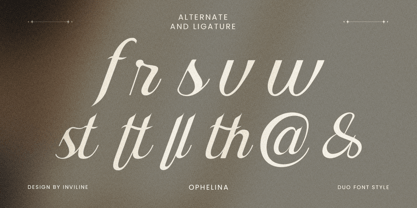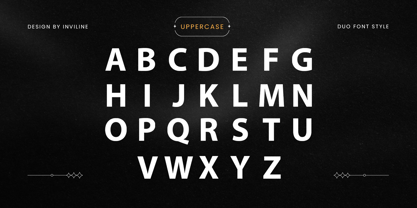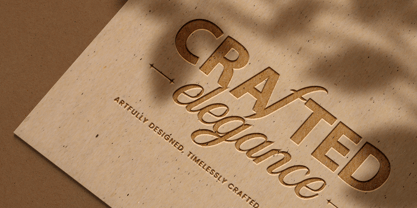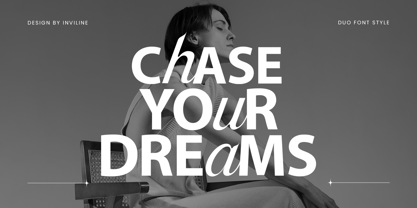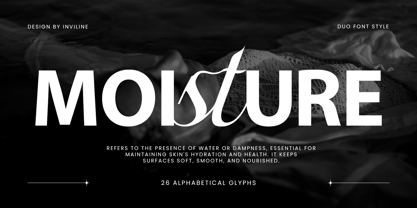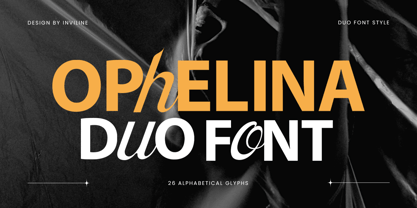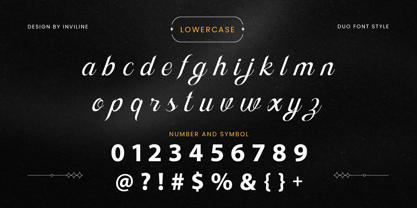
Ophelina
by Inviline
The Ophelina Font Family was designed by Muhammad Rizaldi and published by Inviline. Ophelina contains 1 styles.
Introducing a stunning Font Duo combining a stylish script and a modern sans-serif. Perfect for creating eye-catching branding, logos, and social media designs, this versatile pairing brings elegance and balance to any project, making it effortlessly stand out
Designers: Muhammad Rizaldi
Publisher: Inviline
Foundry: Inviline
Ophelina